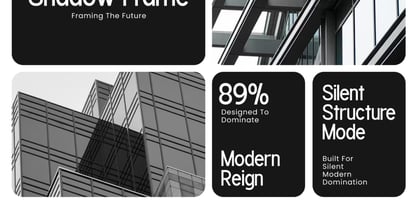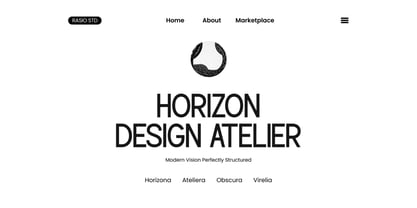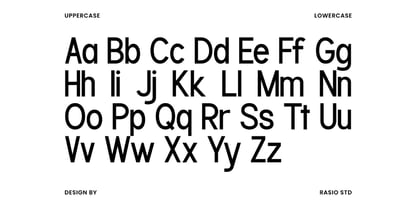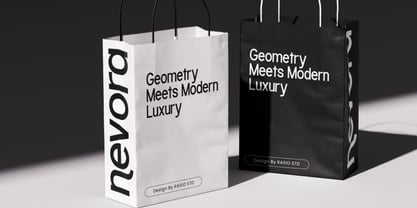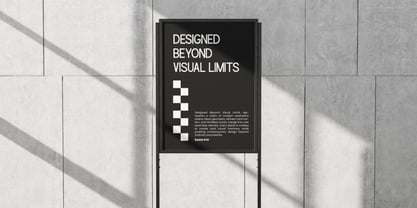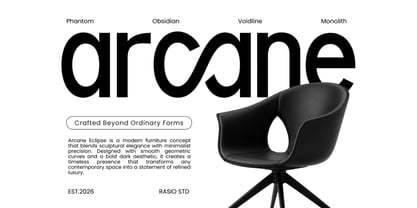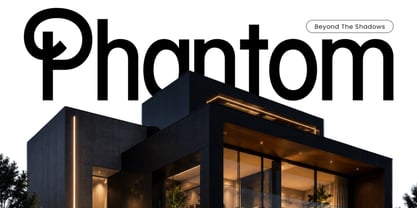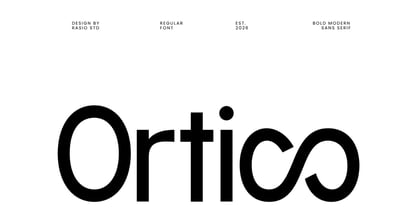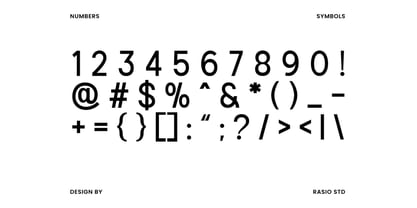
Ortico
by Rasio Studio
The Ortico Font Family was designed by Fajar Indra and published by Rasio Studio. Ortico contains 1 styles. More about this family
Ortico is a contemporary sans serif typeface defined by its clean geometry, generous proportions, and confident visual presence. The font features bold letterforms with smooth curves, balanced stroke widths, and carefully refined construction that creates a strong yet approachable appearance. Its minimalist design language removes unnecessary details, allowing the typography to communicate with clarity, precision, and consistency.
Relevance and Use Case is perfect for projects that require clarity, confidence, and visual efficiency. Its strong structure and clean appearance make it effective for brand identities, technology products, startup companies, corporate communications, website interfaces, mobile applications, editorial layouts, packaging systems, advertising campaigns, social media graphics, presentation templates, and modern marketing materials where clear communication and contemporary aesthetics are essential.
Designers: Fajar Indra
Foundry: Rasio Studio